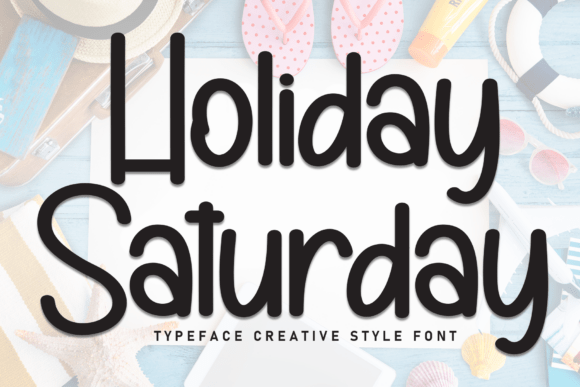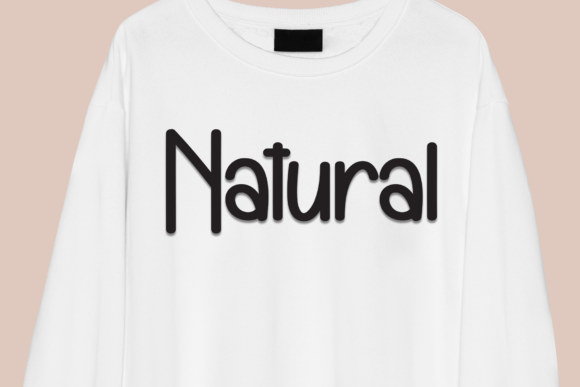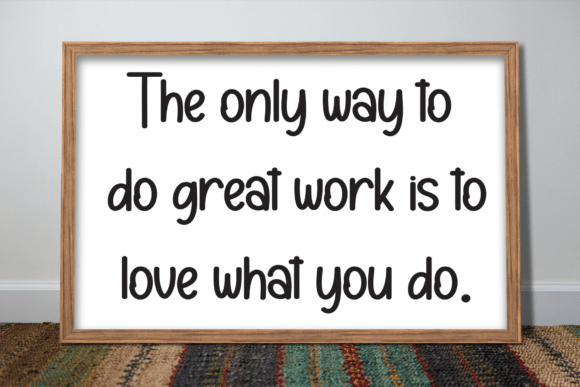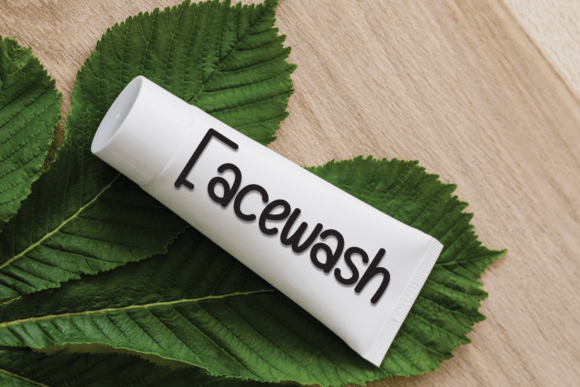
Holiday Saturday Font
About the Holiday Saturday Font
From logos to headlines, the Holiday Saturday Font is the perfect choice for making a lasting impression. Holiday Saturday is a casual and neat display font that radiates a fresh, friendly vibe. With clean lines and a relaxed structure, it’s perfect for packaging, posters, and social media graphics. The approachable design adds charm and clarity to projects while maintaining a polished appearance.
Holiday Saturday’s friendly, casual style makes it ideal for headlines, short-form text on posters and packaging, and social media posts. Its legibility shines in larger sizes, but the relaxed structure isn’t suited to lengthy body copy or UI elements where high readability is paramount. Avoid using it for dense paragraphs or small sizes.
This font’s inherent playfulness pairs well with a clean sans-serif like Open Sans for body text, creating a balance of casual and professional. For a more sophisticated look, consider pairing it with a classic serif like Garamond, where Holiday Saturday’s informal energy contrasts pleasingly with the serif’s elegance.
The overall personality is approachable and optimistic, lending itself well to brands targeting a younger demographic or projects with a lighthearted, celebratory feel. Avoid using it for projects demanding seriousness or high formality.